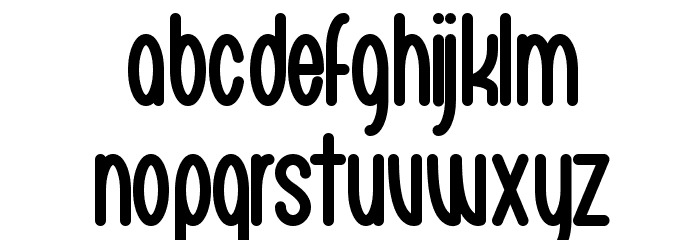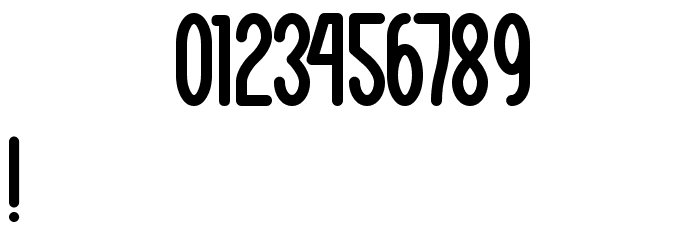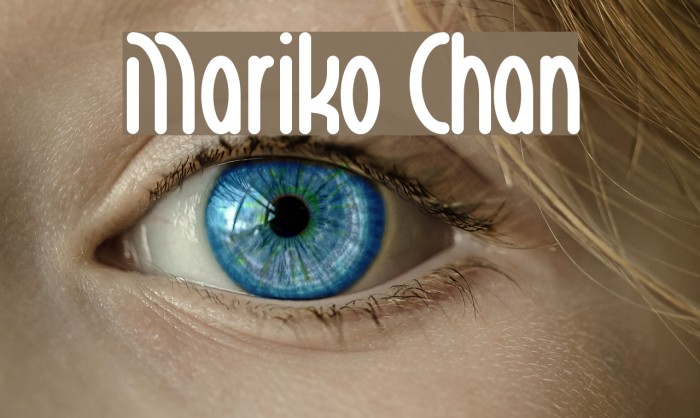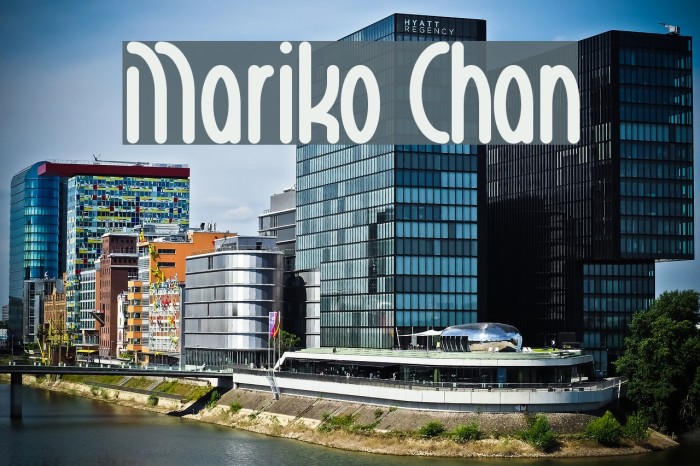
Mariko Chan Font
This font features a playful and rounded style, characterized by its bold and smooth curves. The letters are evenly spaced with a consistent width, giving it a cohesive and uniform appearance. The uppercase and lowercase letters maintain a similar height, enhancing readability. The numbers and special characters are designed with the same rounded edges, ensuring a harmonious look across all characters. The overall design is modern and friendly, making it suitable for a variety of creative applications.
A playful, rounded font with bold, smooth curves and consistent spacing.
- Proposed Projects: Ideal for children's books, playful branding, posters, and social media graphics.